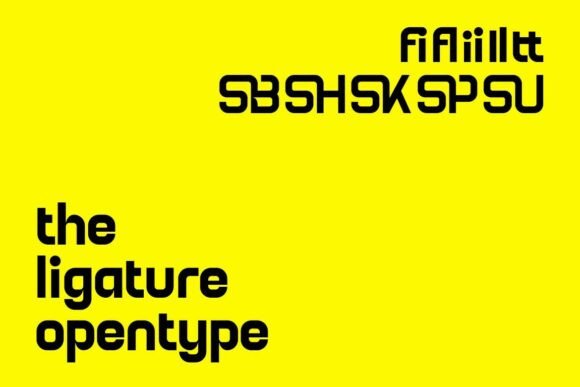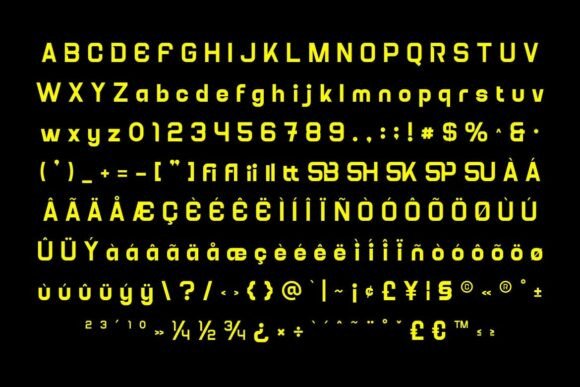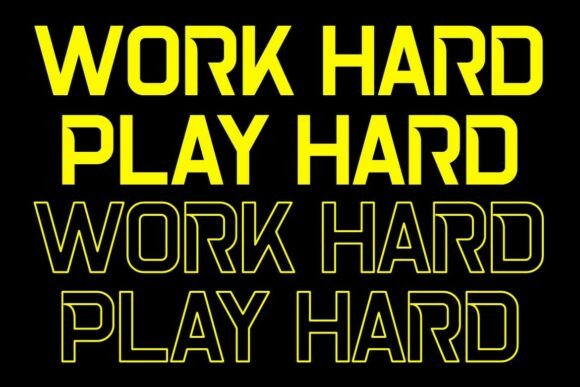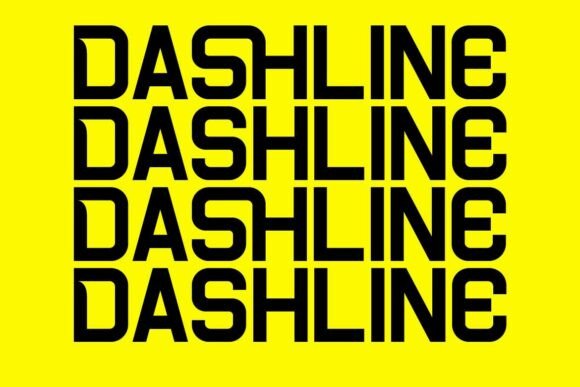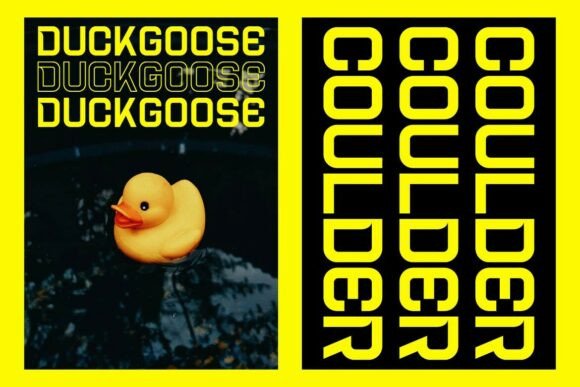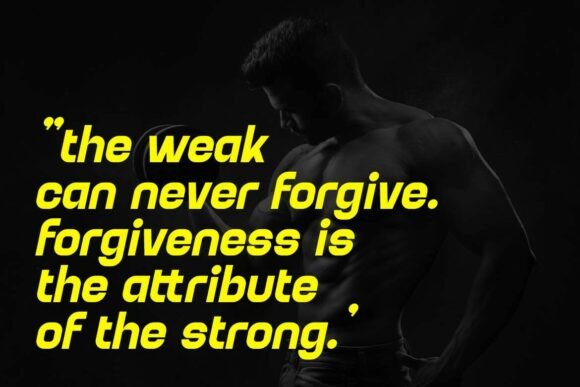
Unlocking the Power of Clean Design with Coulder Font
Have you ever stared at a blank page, waiting for the perfect font to spark your creativity? For many designers, the search for the ideal typeface can be a daunting task. But what if we told you that there’s a modern sans serif font that can bring fresh energy and clarity to your work? Enter Coulder Font, a game-changing typography solution designed to elevate your designs and make your creative vision shine.
With its clean structure, balanced proportions, and subtle character details, Coulder Font offers a perfect blend of professionalism and creative personality. Whether you’re working on a branding project, creating a website, or designing a marketing campaign, this versatile font is sure to bring your designs to life. As a designer, you’ll appreciate the value that Coulder Font brings to your work – a perfect combination of style, sophistication, and readability.
Coulder Font Key Features
- Font Family: Coulder Font is a sans-serif font family, designed to be clean, modern, and highly legible.
- Unique Characteristics: Coulder Font features a unique, geometric design with a subtle rounded edge, giving it a friendly and approachable feel.
Designer Review: Coulder Font
Overall, I think Coulder Font is a solid choice for designers looking for a clean and modern sans-serif font. ✨ It’s got a lot of potential for use in a wide range of projects, from logos and branding materials to digital products and web design.
Here are some things that work well:
- ✨ Excellent legibility: Coulder Font is very easy to read, even at smaller font sizes.
- ✨ Versatile: The font works well for both digital and print materials.
- ✨ Clean design: The font has a sleek and modern aesthetic that’s perfect for contemporary designs.
- ⚠️ Limited font weights: Coulder Font only comes in a few font weights, which may limit its use in certain situations.
- ⚠️ Not ideal for serif-heavy designs: While Coulder Font is great for sans-serif designs, it may not be the best choice for projects that require a lot of serif typography.
Overall, I’d say that Coulder Font is a solid choice for designers who want a clean and modern sans-serif font. With a bit of creativity and experimentation, it’s definitely worth considering for your next project.
Tips for Getting the Most Out of Coulder Font
Use Coulder Font for titles, headings, and emphasis to add a touch of elegance to your designs. Experiment with different font sizes and colors to create visual interest. Combine Coulder Font with other fonts to create a unique and eye-catching design.
Use Coulder Font for:
- Branding and marketing materials
- Editorial and publishing designs
Yes, Coulder Font is available in five different font weights: Light, Regular, Medium, Bold, and Black. Each weight has its own unique characteristics, allowing designers to choose the one that best suits their design project.